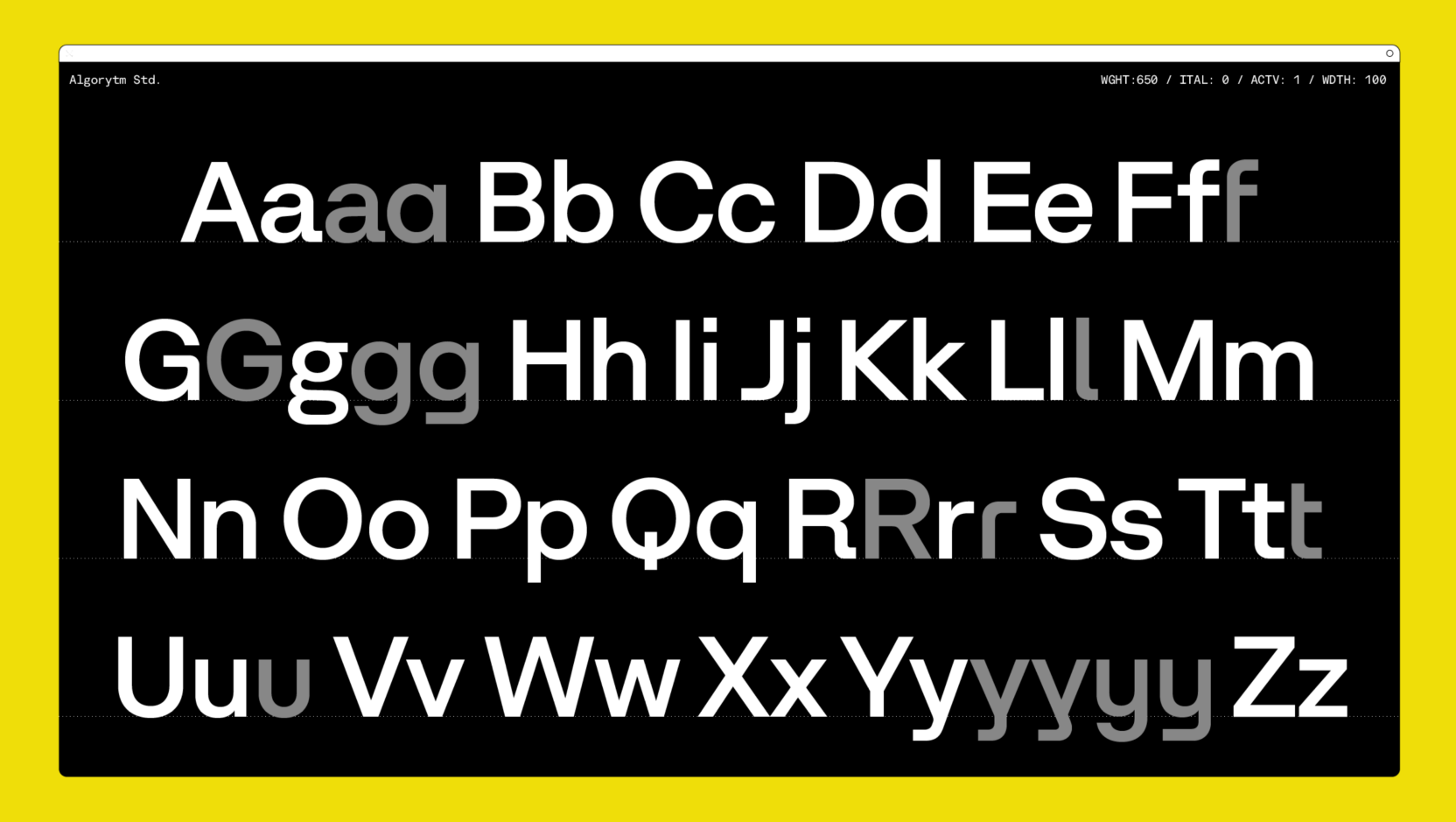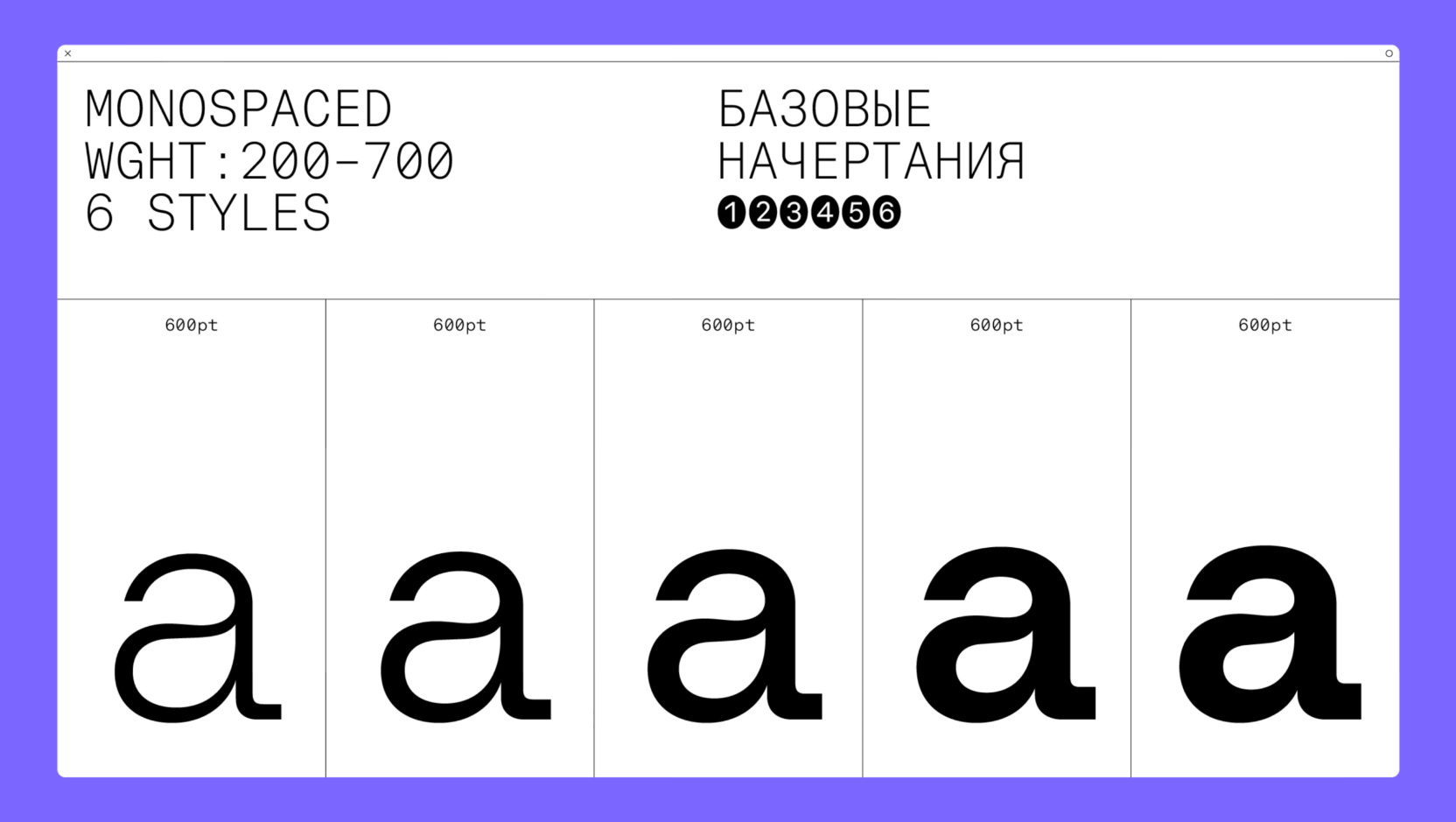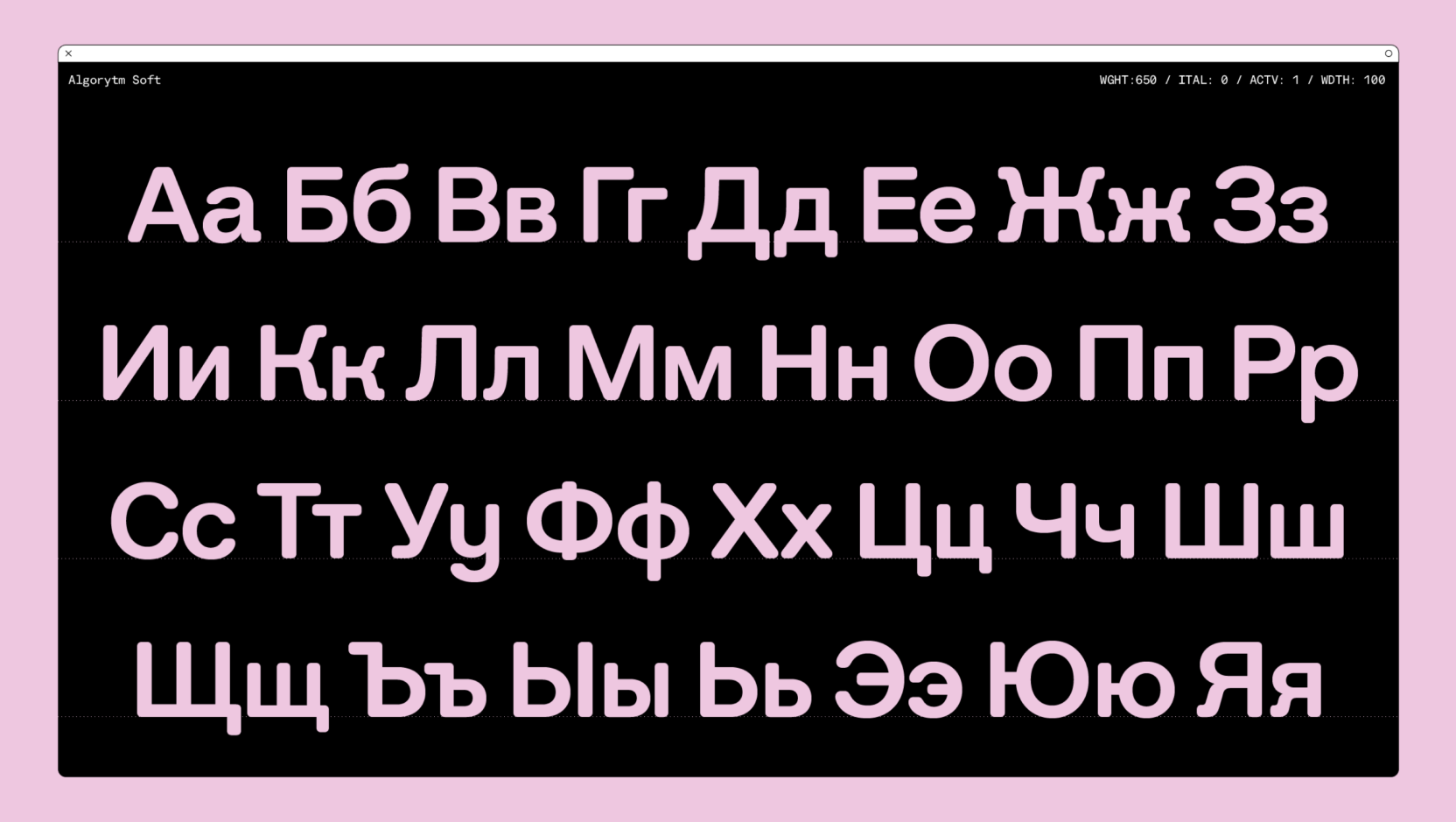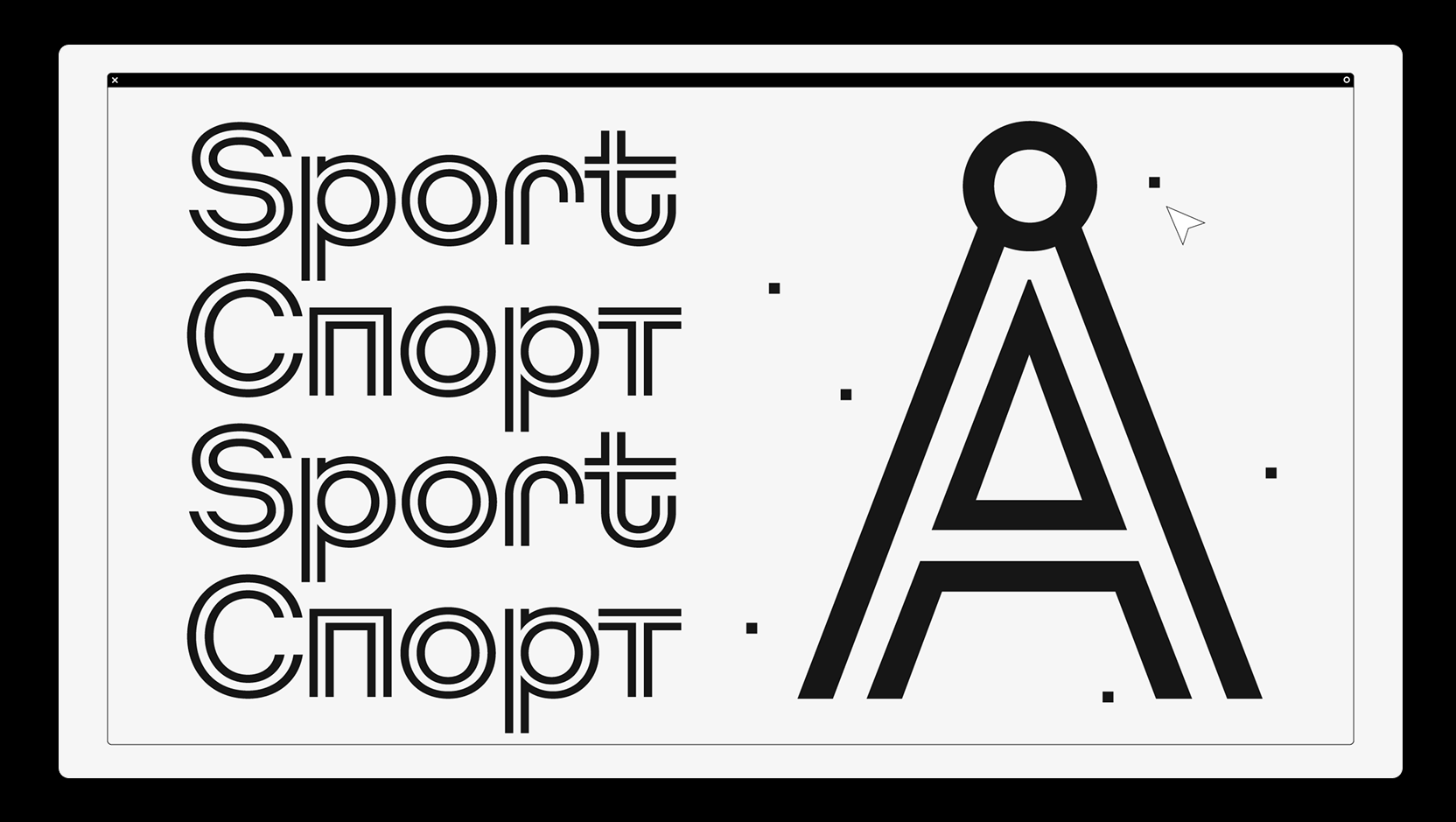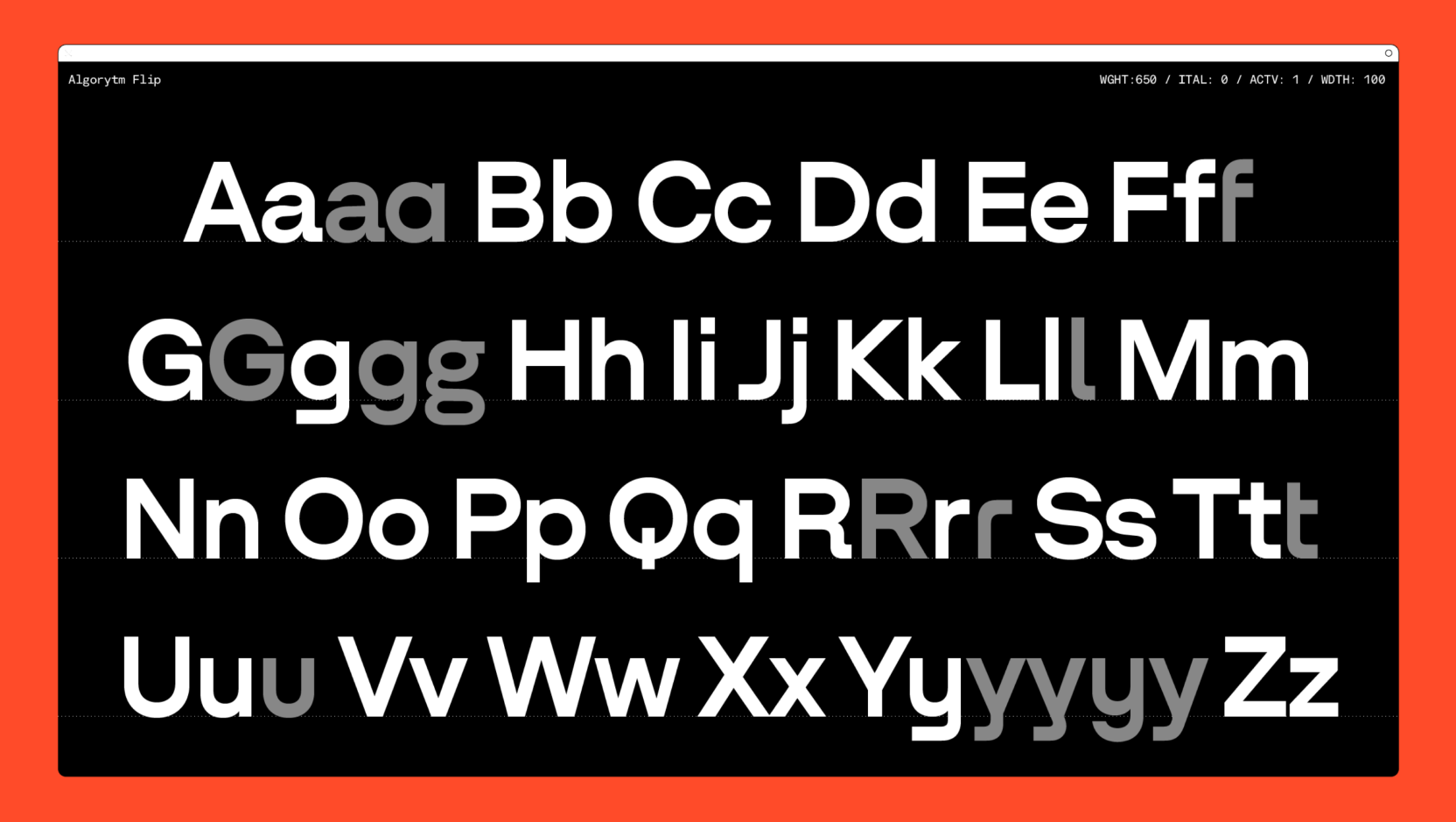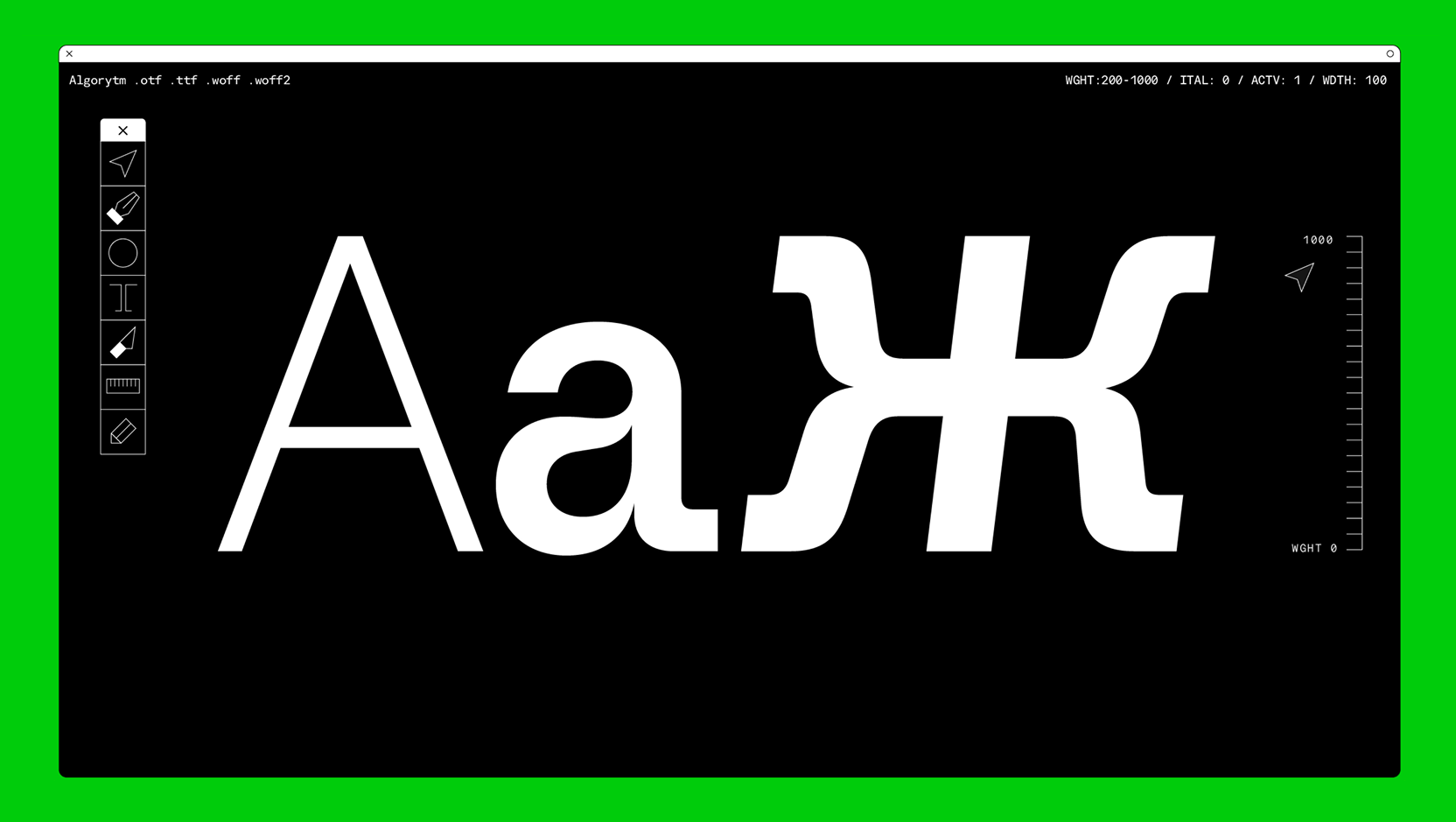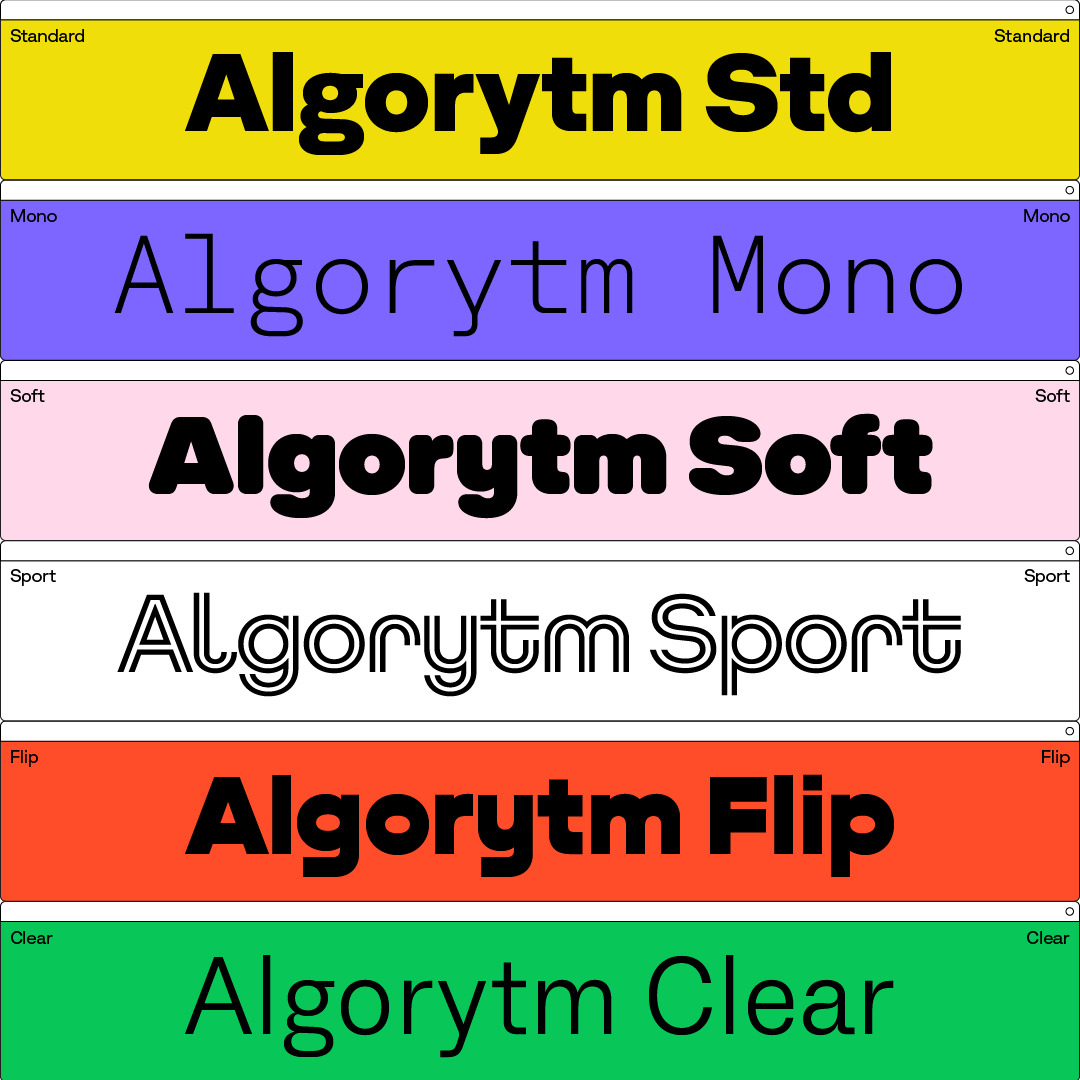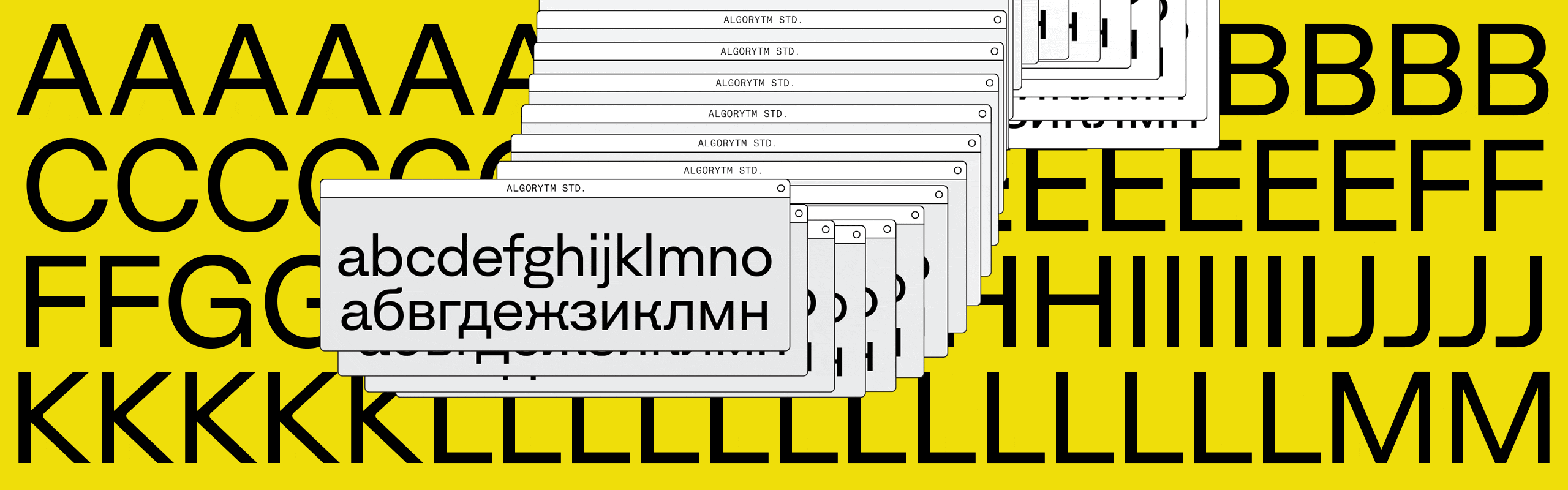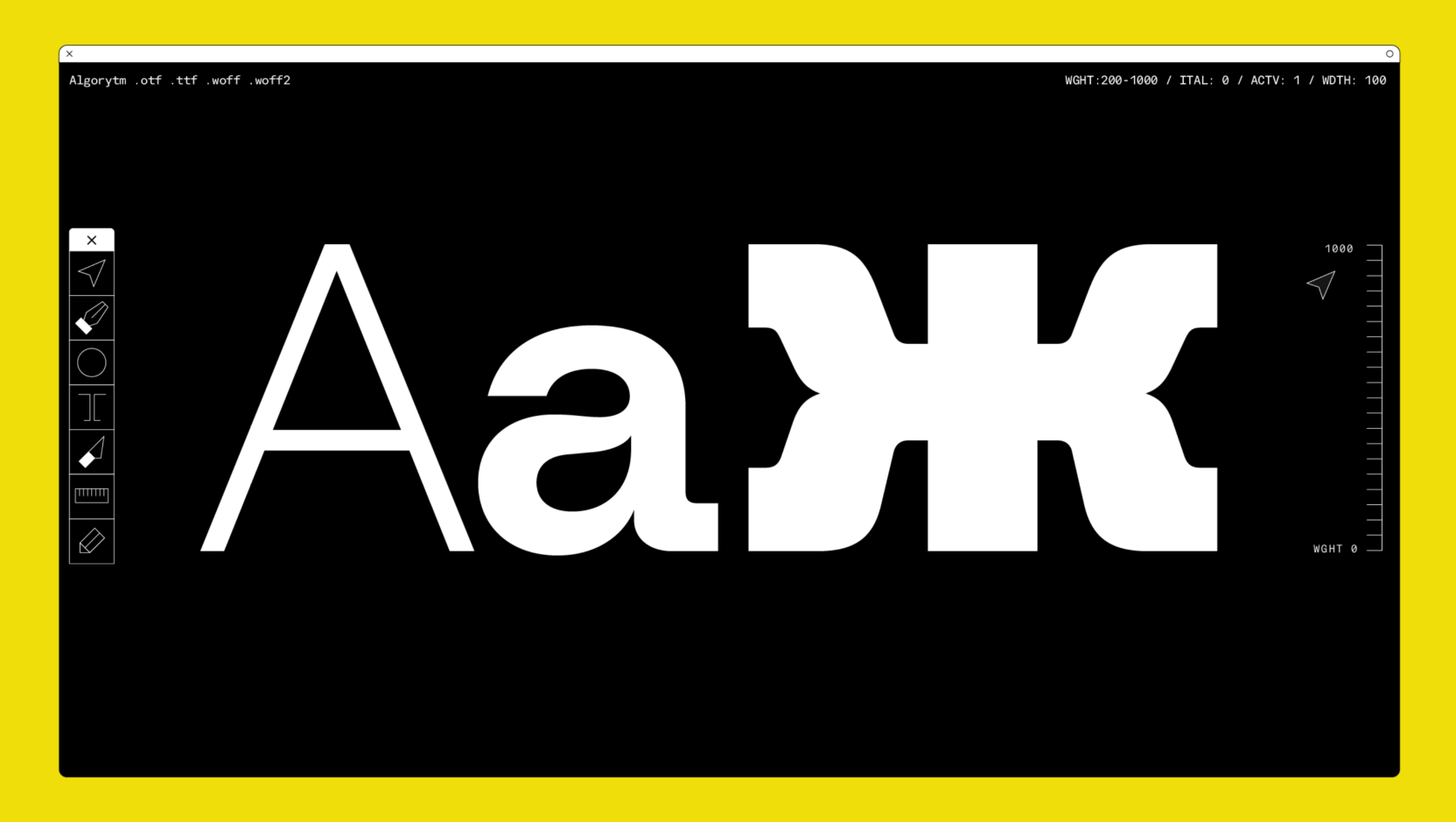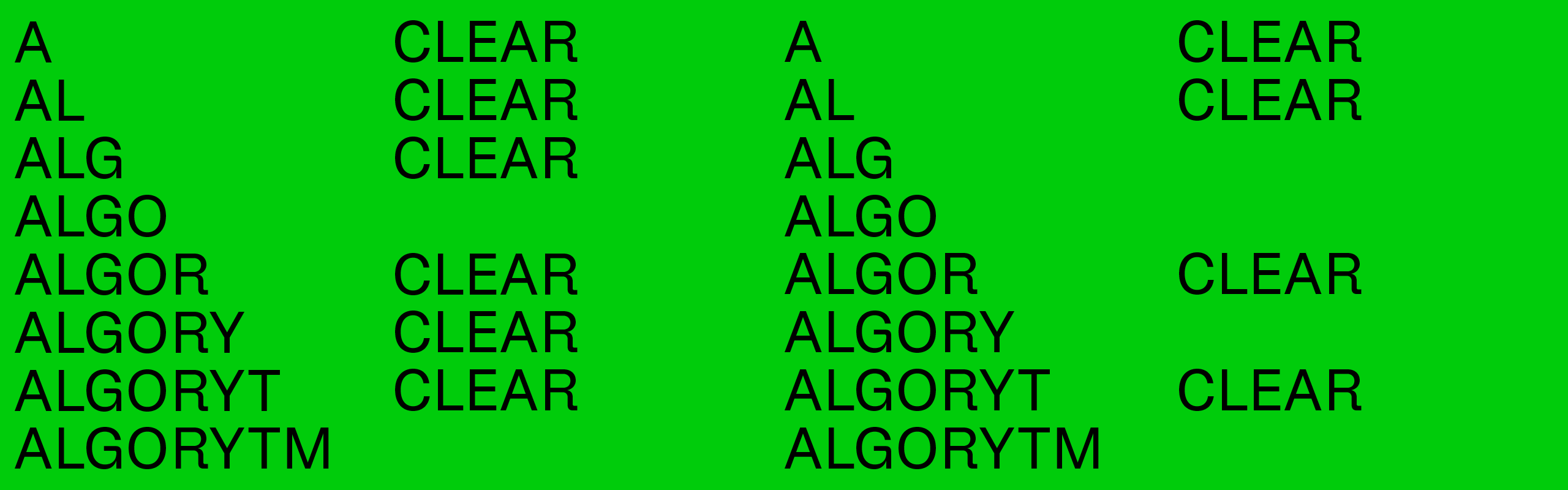
Algorytm is a modern collection inspired by early sans serif faces such as Times Gothic, Inland Gothic N6, and Gothic N2. This comprehensive, flexible system can cover any design scenario, ranging from an identity for a tech corporation to craft beer labelling.
The collection includes six families, totaling 51 styles. The basic Algorytm is ideal for bold statements and larger sizes, while Algorytm Clear is best suited for quieter, longer text settings. Algorytm Soft is a friendly, rounded-corner version that is here to soften the tone of voice, while Algorytm Sport, a dynamic in-line sans serif, adds excitement. Algorytm Flip, with its unconventional distribution of contrast, can single-handedly shape a project’s unique voice, whereas the monospaced Algorytm Mono does a perfect job even across huge amounts of code.
The typeface contains a set of text figures, framed numerals, plenty of stylistic alternates (such as four graphic variants of y and two versions of ж), and a set of mathematical symbols.